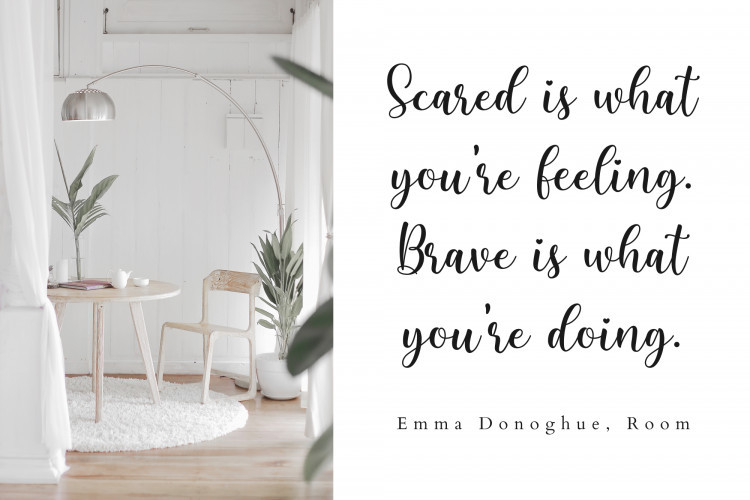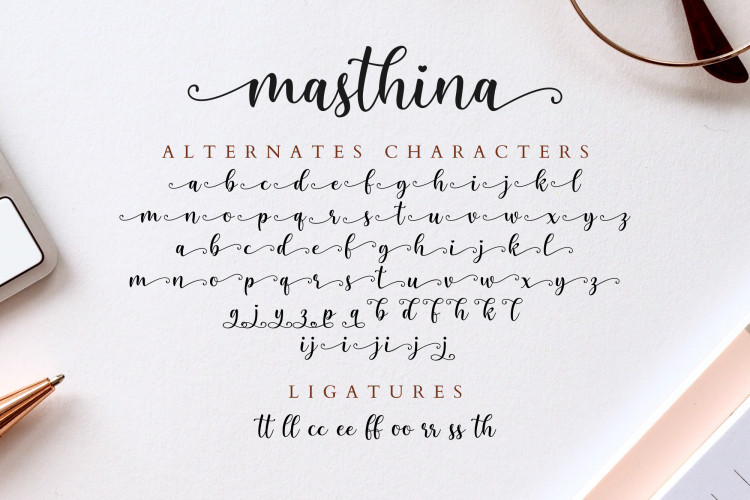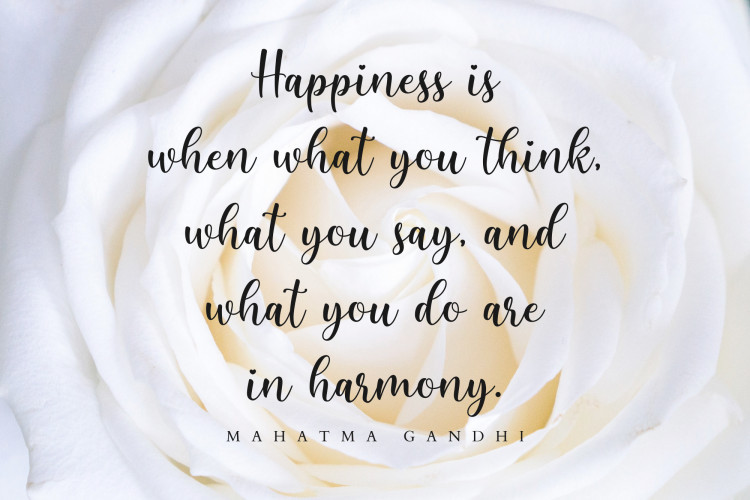
Masthina Modern Script Font
Masthina Modern Script – Demo Font
This is a stylish modern calligraphy script with a whole lot of wilderness and character. It’s a beautiful script with a modern vibe. It has a classy, elegant, and modern look. Say hello to Masthina Font. It’s a lovely calligraphy typeface with a modern bouncy style. It comes with a natural flow looks like a handwritten letter and also we added some swashes and alternates to make the font more elegant. Masthina Script is perfect for many different projects such as logos & branding, invitation, stationery, wedding designs, social media posts, advertisements, product packaging, product designs, label, photography, watermark, special events or anything.